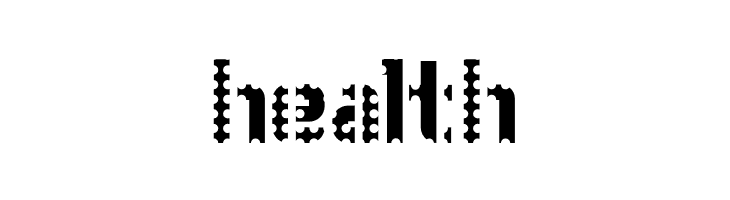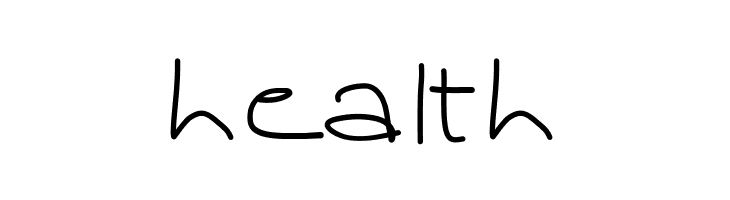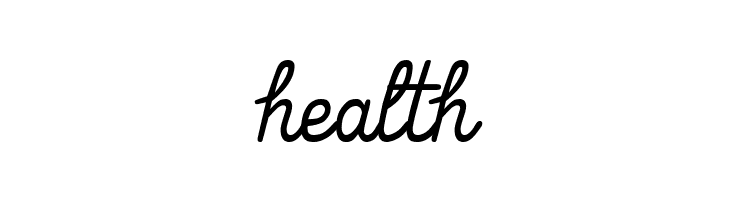
A bold, perforated stencil font with a modern industrial aesthetic.
A distressed serif font with a vintage, textured style.
A bold, playful font with dynamic curves and a whimsical, hand-drawn style.
A bold, italic script font with a lively, handwritten style.
A playful, casual handwritten font with irregular strokes and a whimsical feel.
A playful and whimsical script font with smooth, flowing curves and elegant loops.
A playful, handwritten-style font with dynamic strokes and artistic flair.
A bold serif font with a classic yet modern style, featuring strong serifs and consistent strokes.
A geometric, angular font with a futuristic and technical design.